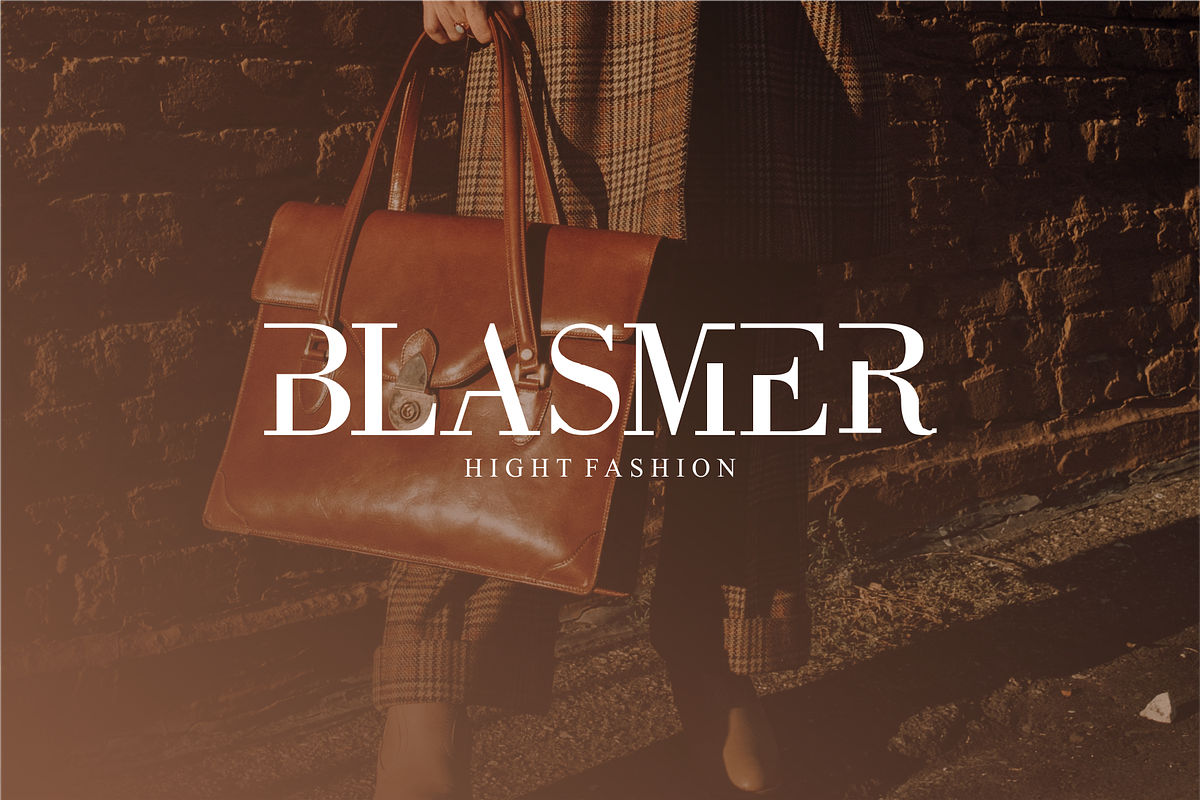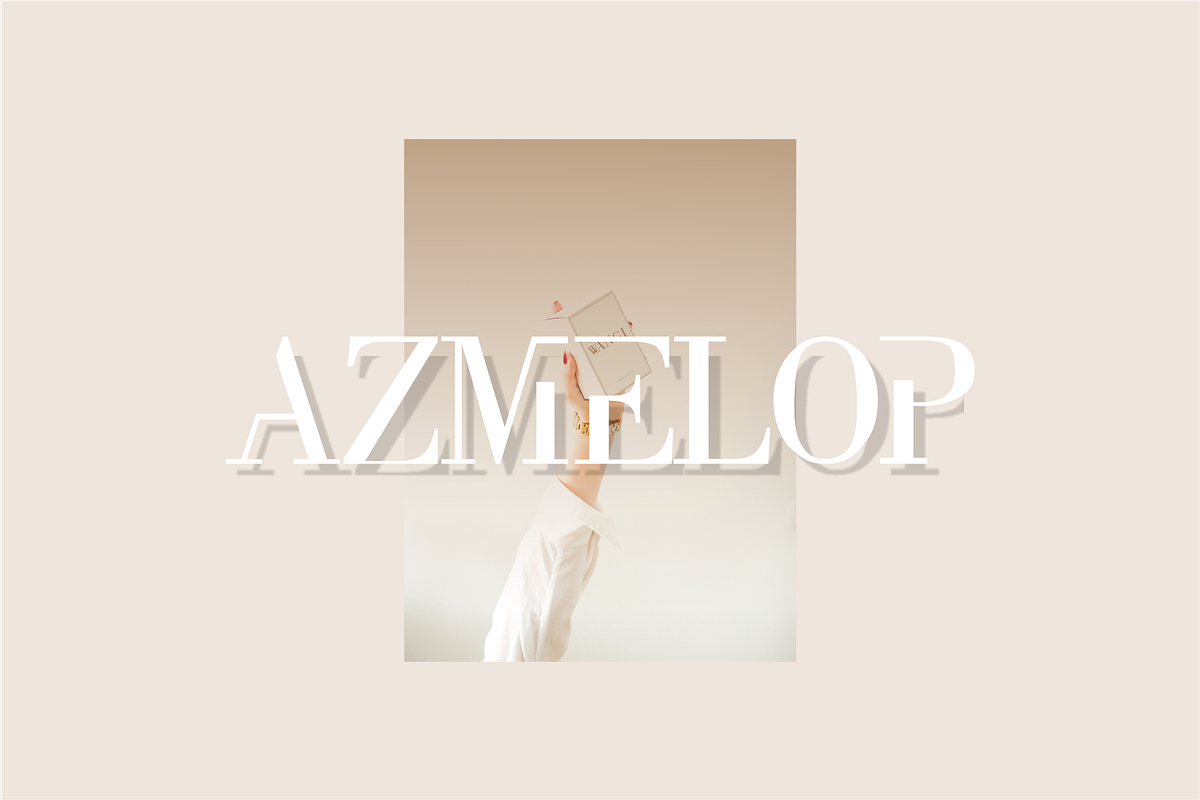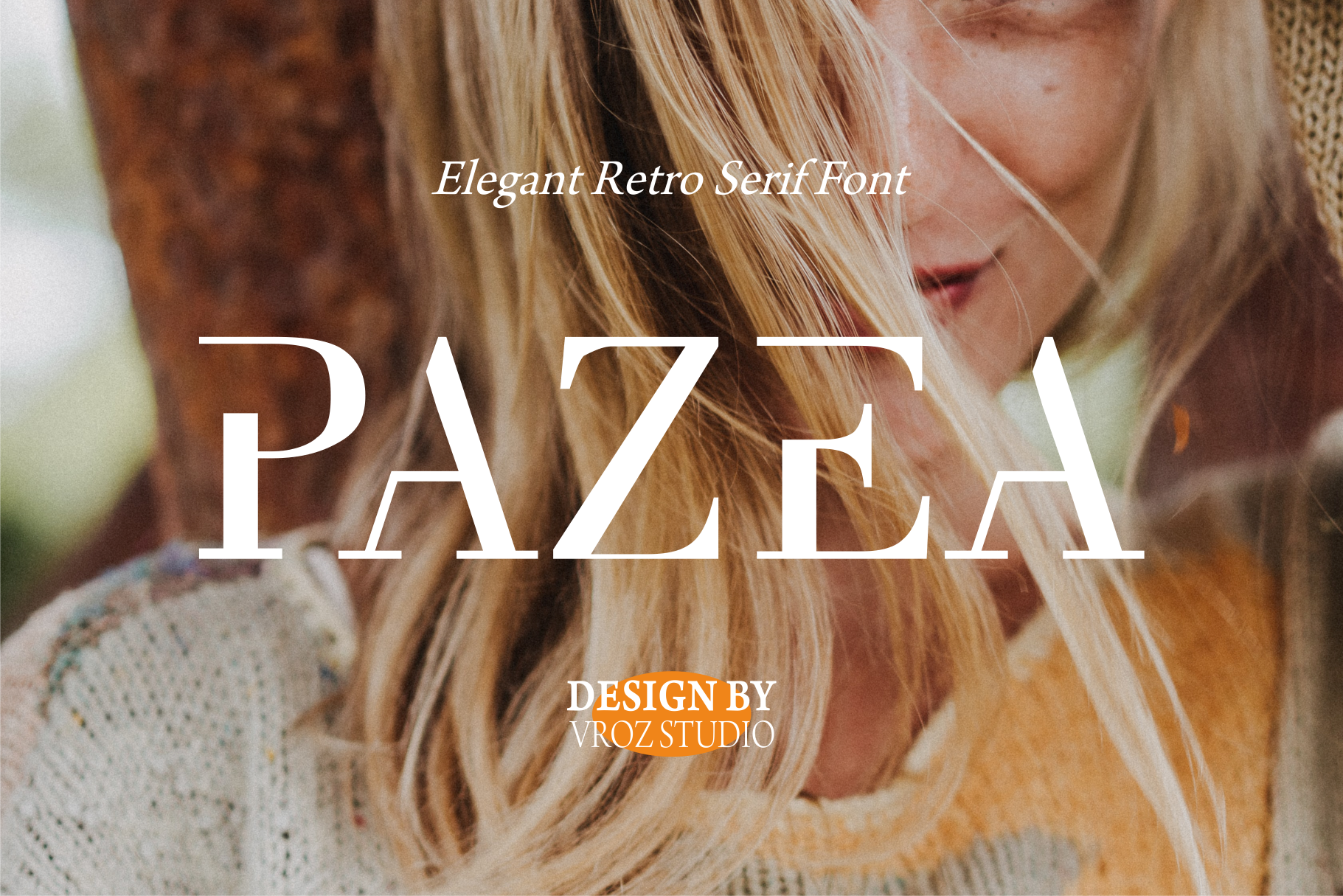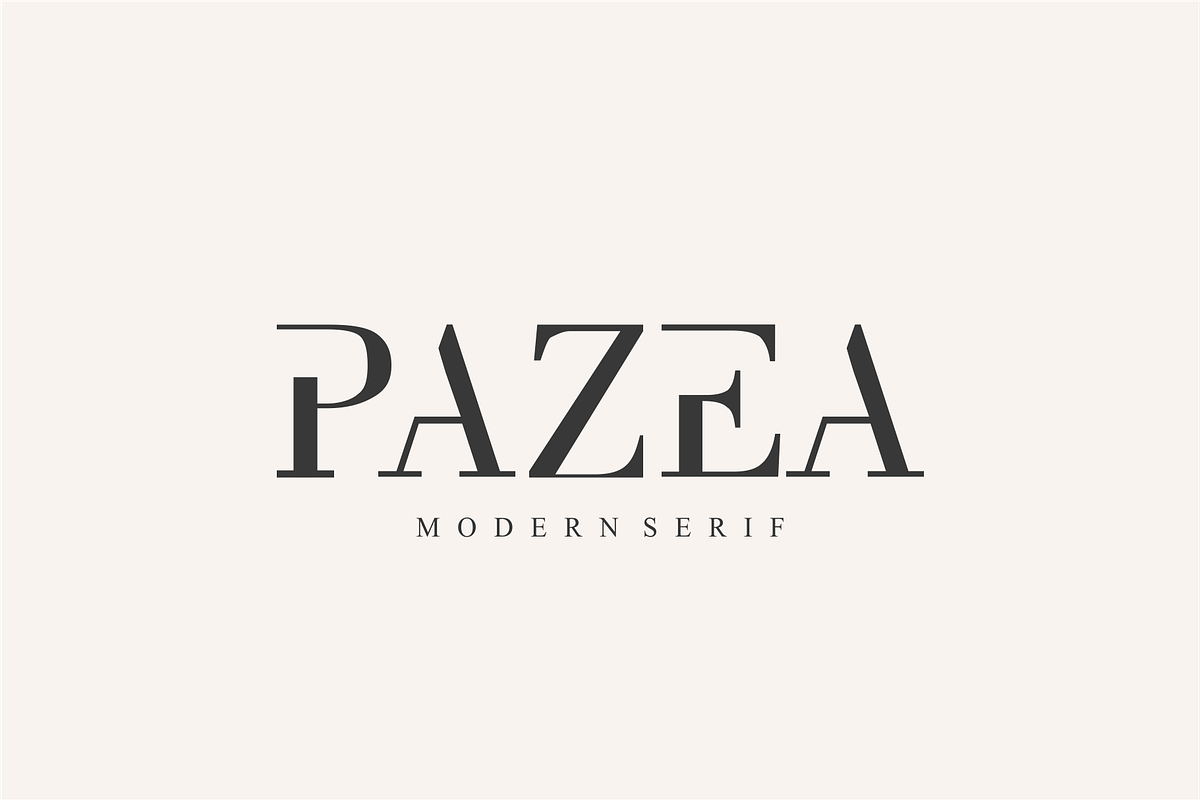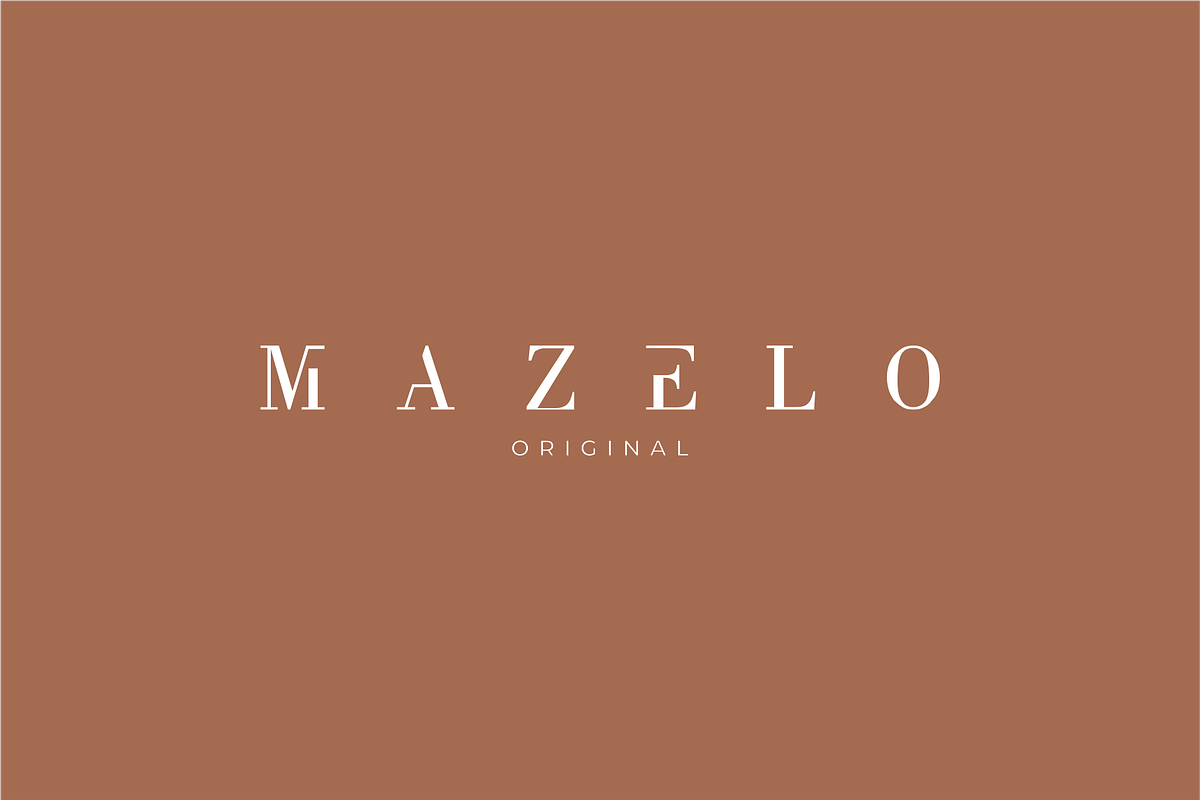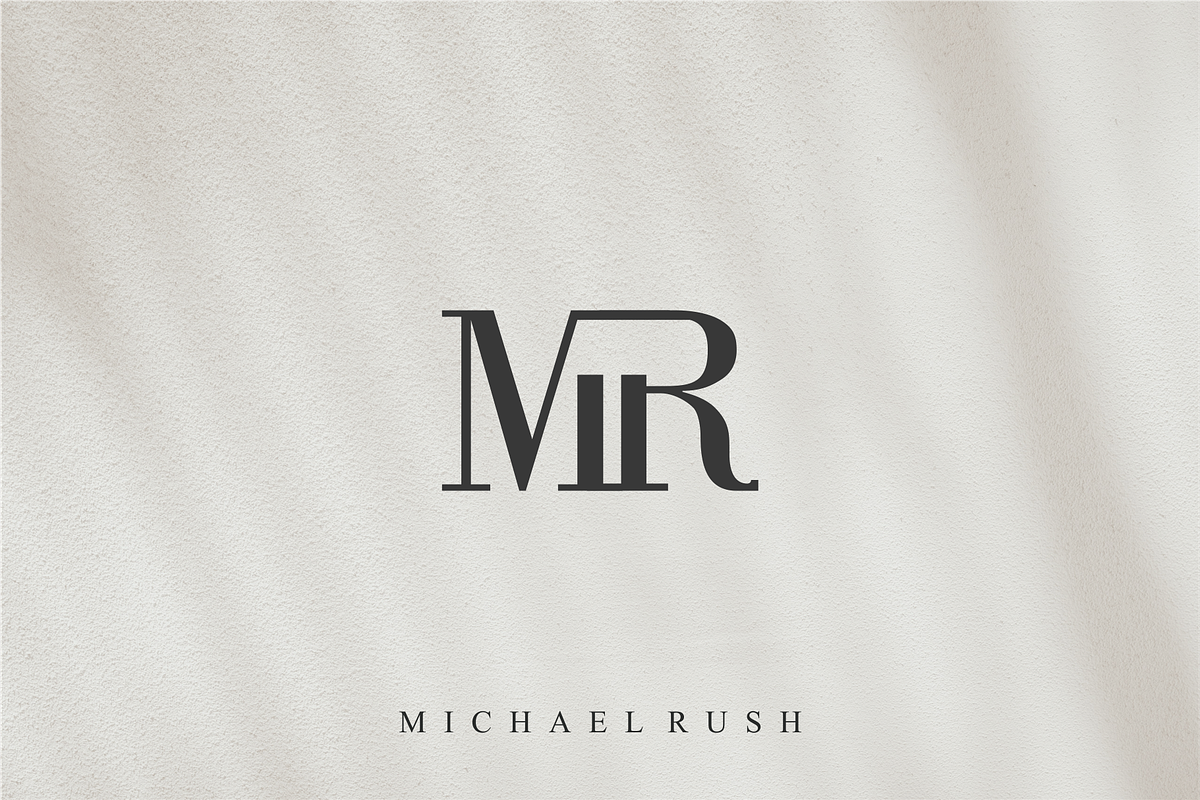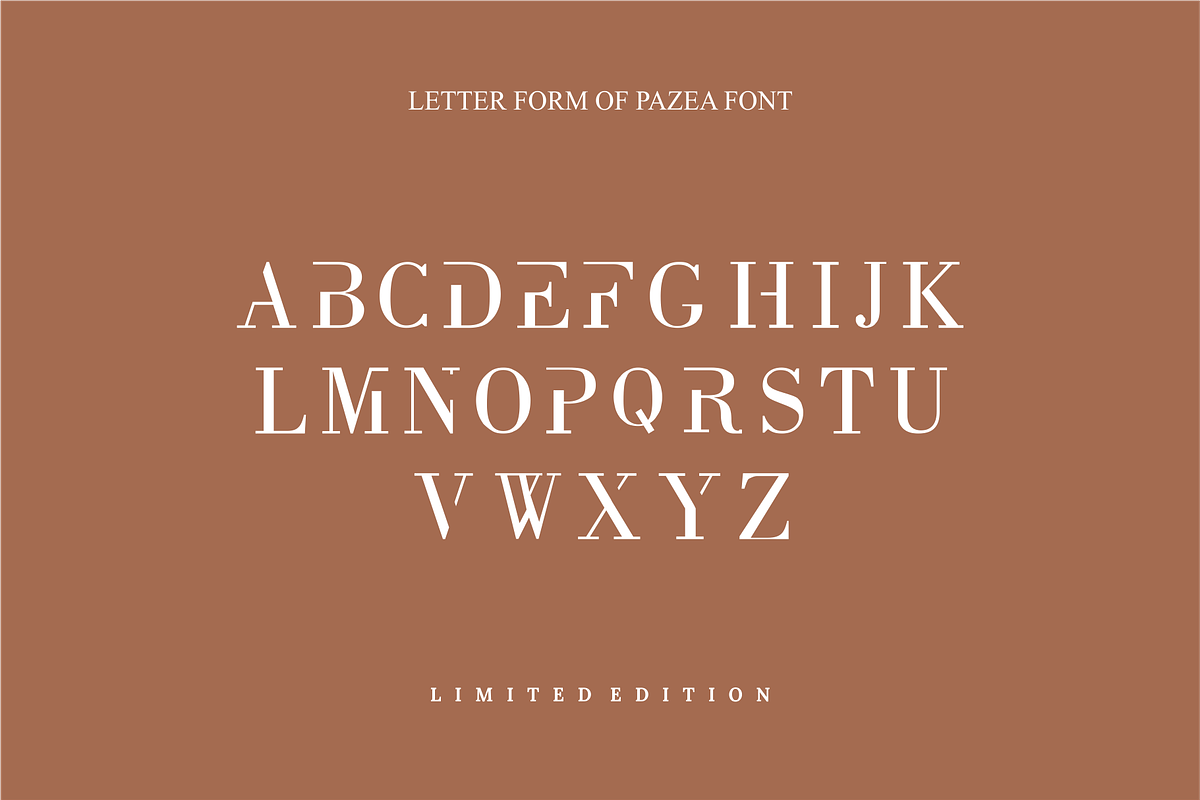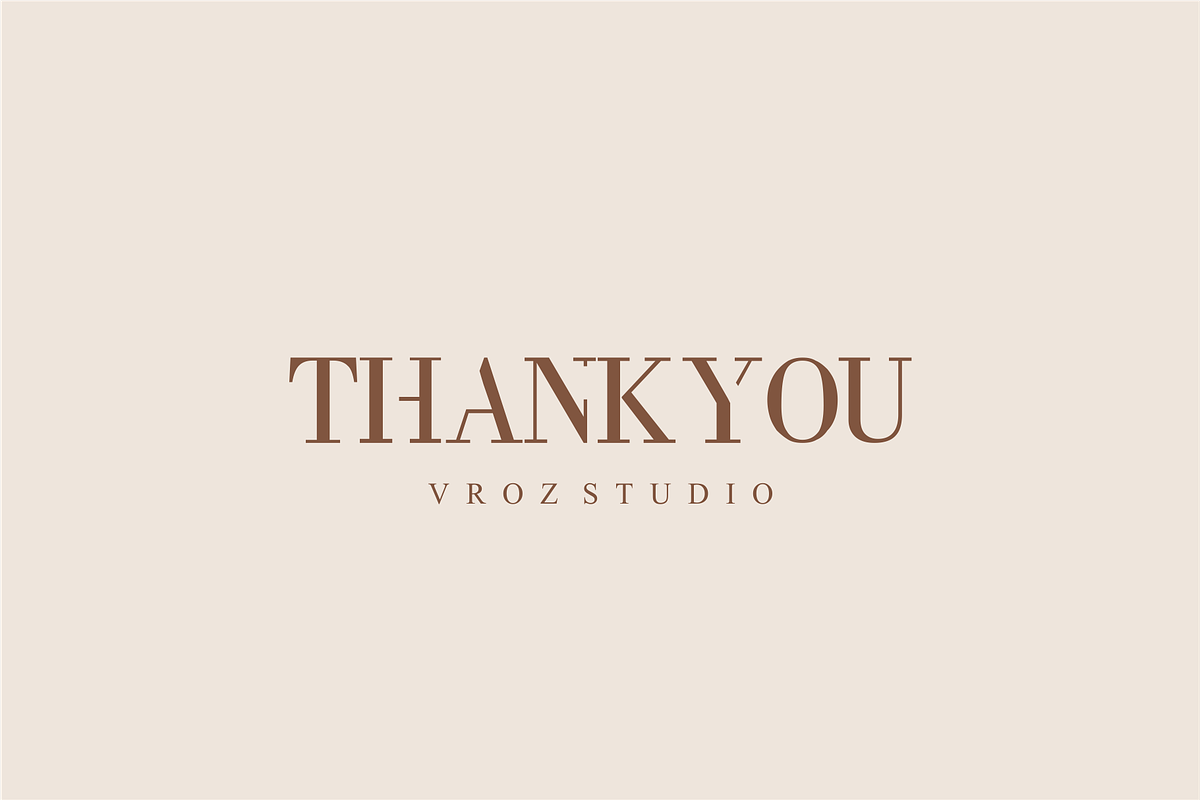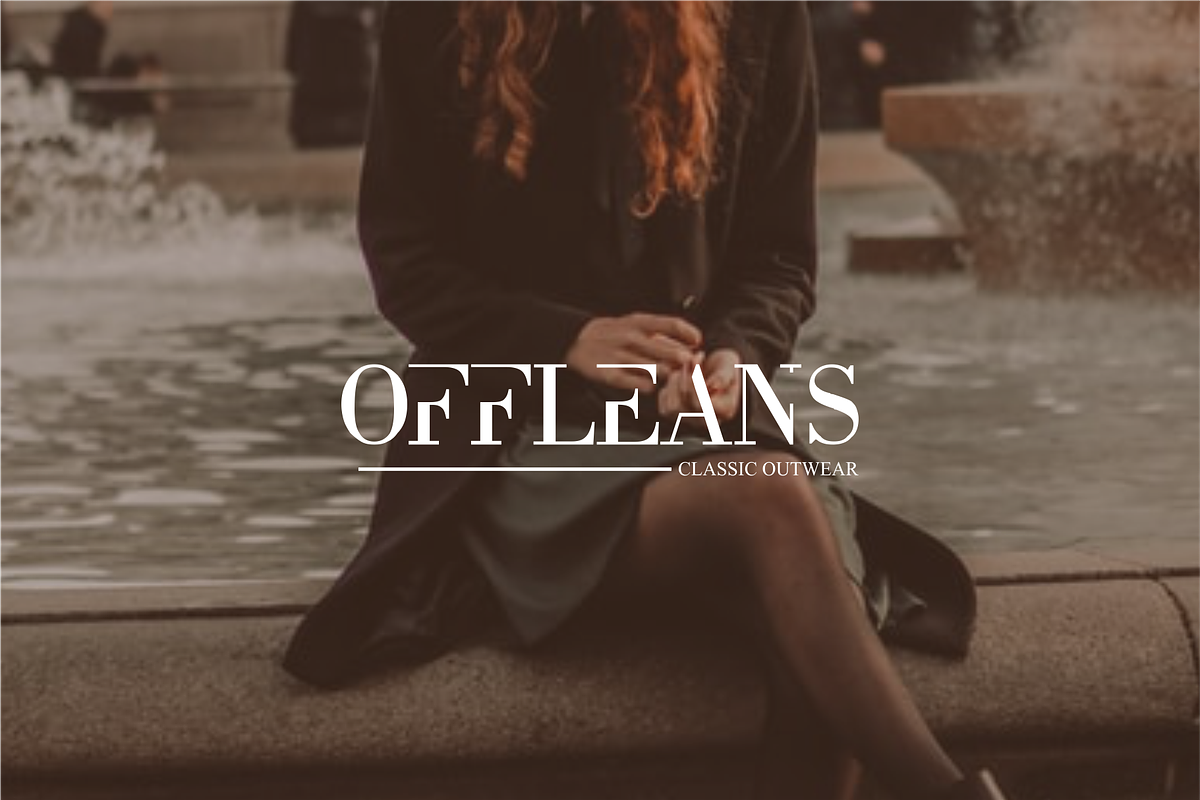
PAZEA- elegant serif font
Pazea is a modernized, classic style serif typeface. This multipurpose font can be used for wordmark logos, mastheads, pull quotes. monograms that show feminine and masculine qualities. You can also use your initial name or your brand that looks luxurious, simple and expensive.